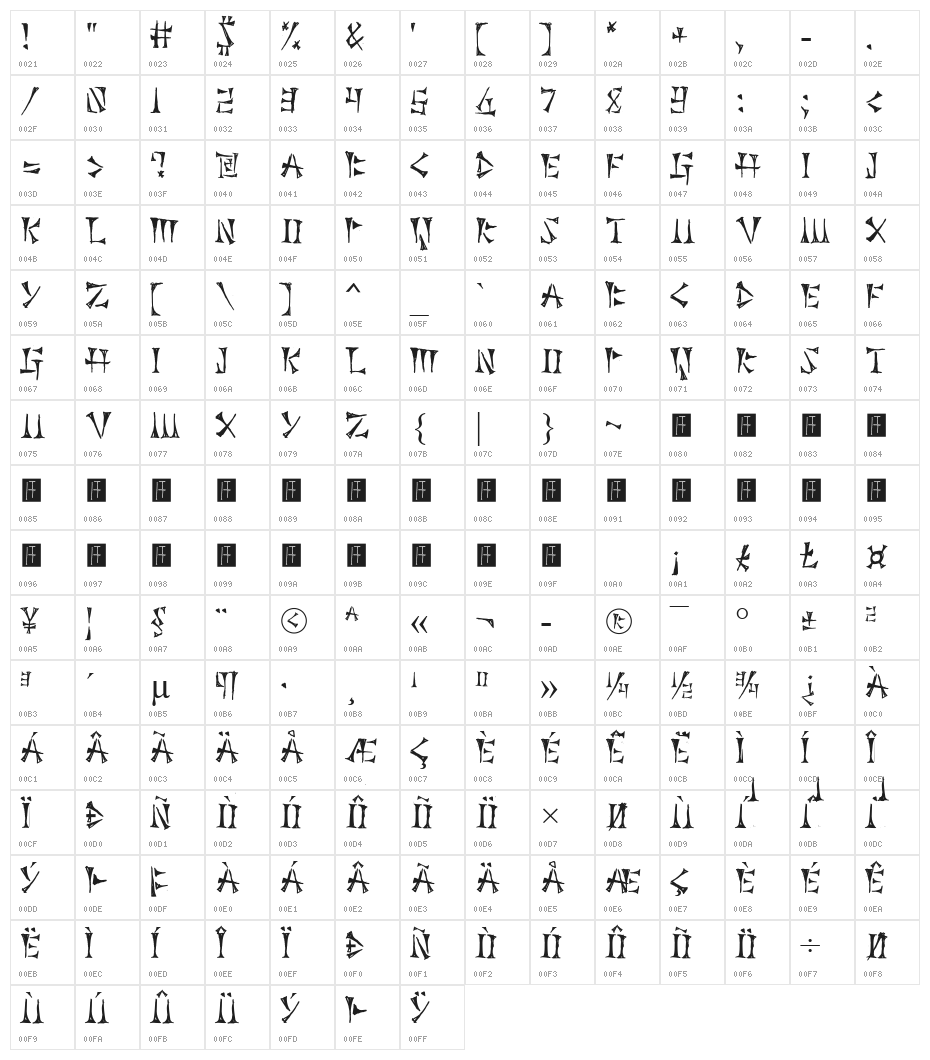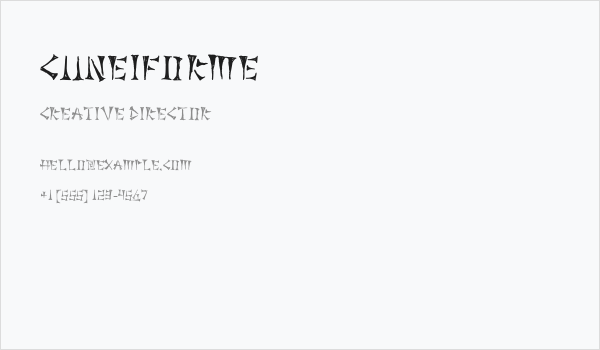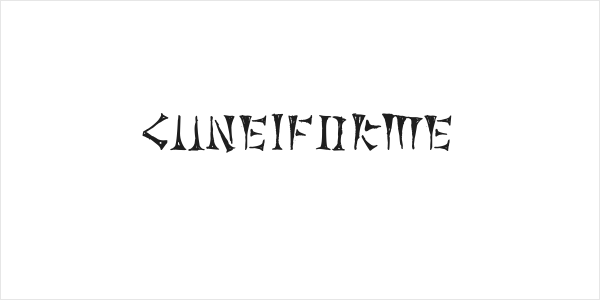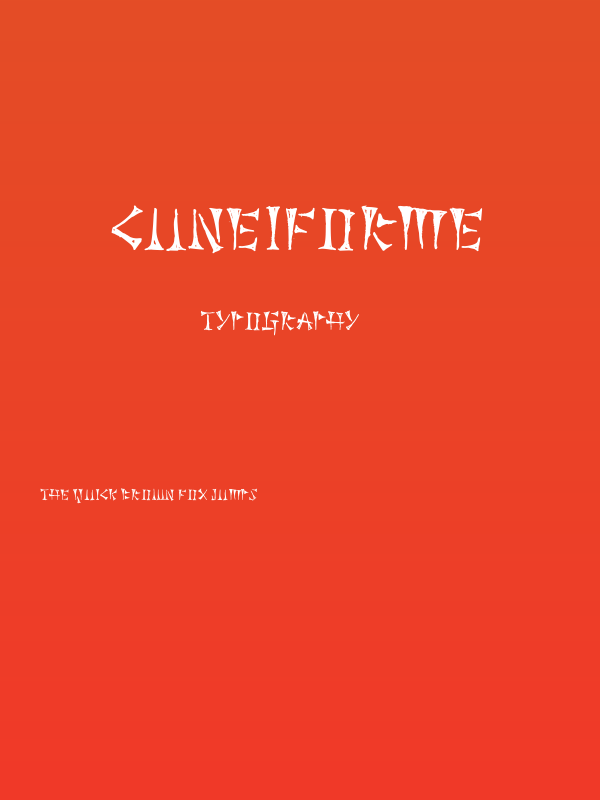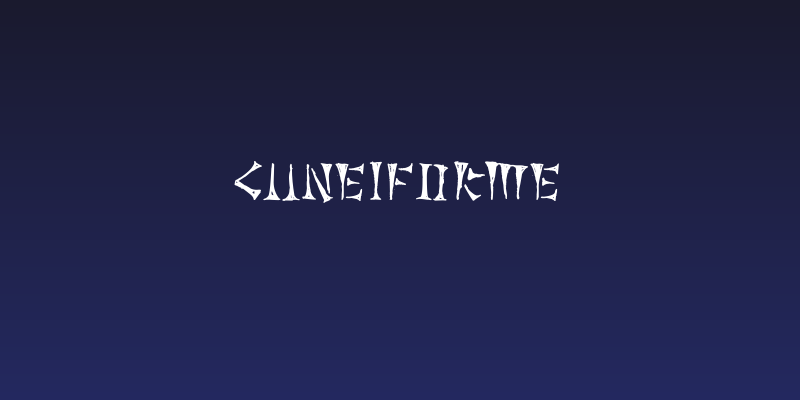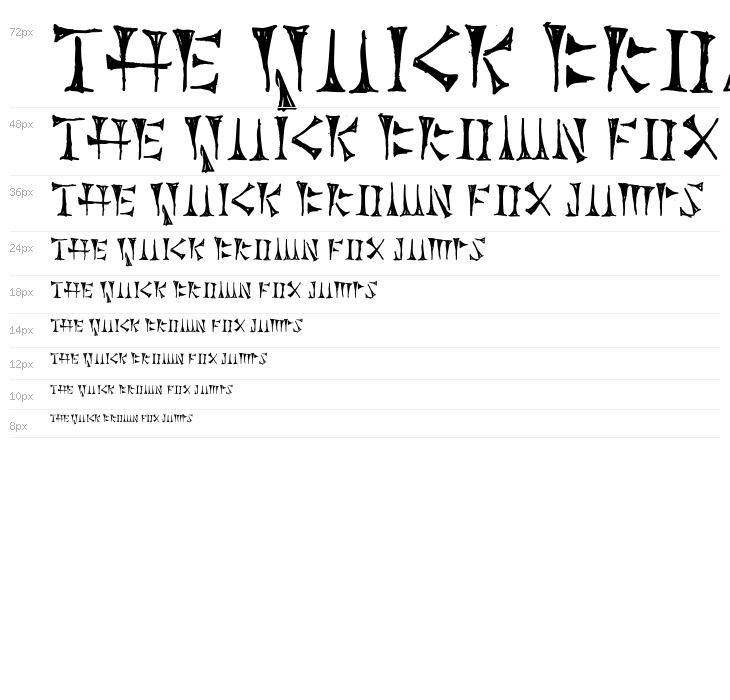
Cuneiforme Font
Cuneiforme Description
This font features a unique, ancient-inspired design reminiscent of cuneiform script. The characters are bold and angular, with sharp edges and a hand-chiseled appearance. Each letter is distinct, with a rugged texture that suggests a historical or archaeological theme. The uppercase and lowercase letters maintain a consistent style, while the numerals and special characters complement the overall aesthetic. This font's distinctive look makes it ideal for projects that require a touch of antiquity or a bold, statement-making typeface.
| Proposed Projects | Ideal for historical-themed designs, archaeological exhibits, movie posters, or video game titles that require an ancient or mysterious aesthetic. |